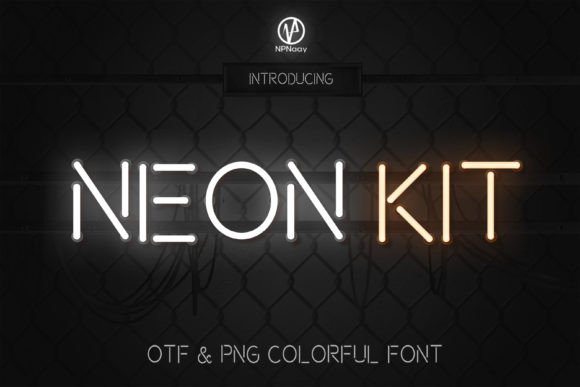
Introducing Neon Kit Font, the perfect addition to any fashion blog or design project! With its colorful font family and carefully handcrafted design, Neon Kit Font will transport you back to the neon signs of yesteryear. Created by NPNaay, this font is the ultimate way to make your projects pop.
But what makes Neon Kit Font stand out from the crowd? Firstly, it's perfect for fashion blogs, with a keyword of "Best Fonts For Fashion Blogs." It will give your site an eye-catching, nostalgic touch that is sure to keep your readers engaged. But it's not just for fashion blogs; Neon Kit Font is incredibly versatile, and can be used in a variety of design projects.
This font is more than just visually stunning; it's also incredibly emotive. Neon Kit Font captures the spirit of a bygone era, evoking feelings of nostalgia and warmth. It's the perfect way to infuse your projects with personality and style.
But what really sets Neon Kit Font apart is its attention to detail. Every curve and line has been carefully crafted to ensure that this font will become your favorite. Whether you're creating a website, designing a poster, or putting together a social media campaign, Neon Kit Font will elevate your projects and help you stand out from the crowd.
In summary, if you're looking for a font that is eye-catching, versatile, and full of personality, look no further than Neon Kit Font. It's the perfect way to add a touch of nostalgia and warmth to your projects, and is sure to become your go-to font for years to come.